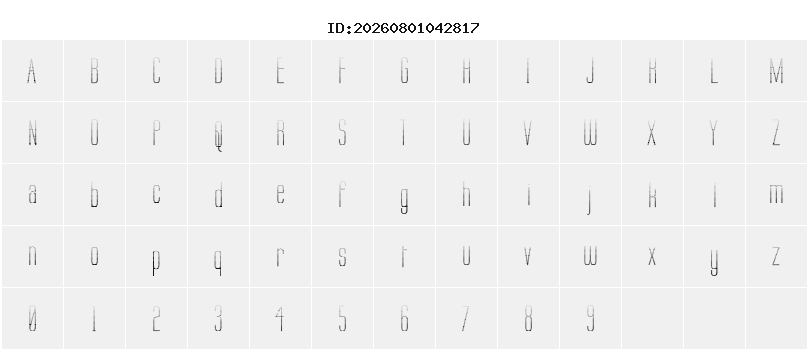
Labtop Graphed Preview
• Font Name: Labtop Graphed
• Font ID: Labtop Graphed
• Full Font Name: Labtop Graphed
• PostScript Name: LabtopGraphed
About Labtop Graphed.ttf
Labtop Graphed.ttf is a modern, elegant sans-serif font designed for ultimate readability and visual harmony. Perfect for branding, headlines, web design, and print materials.